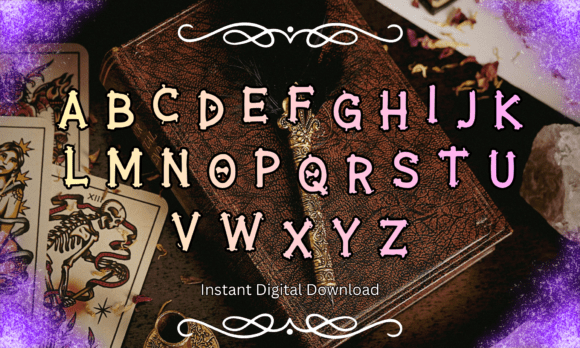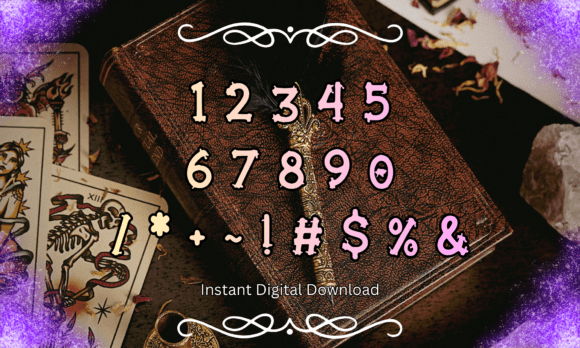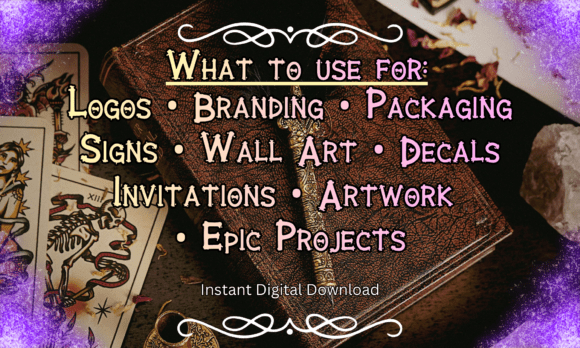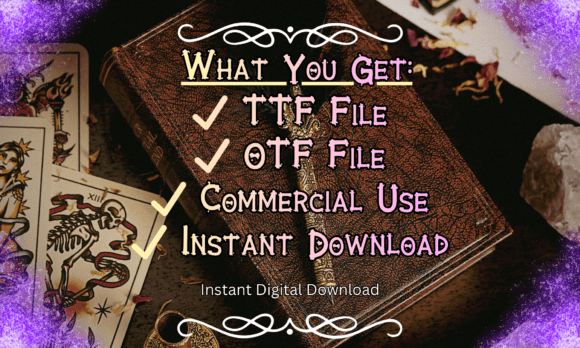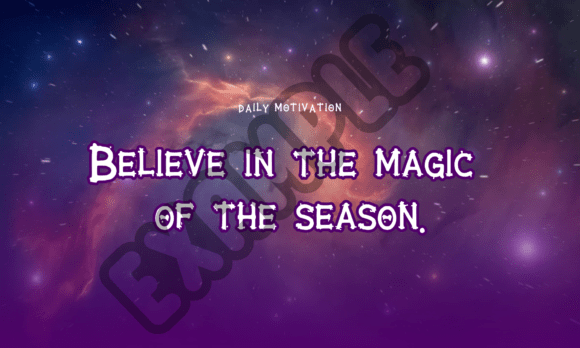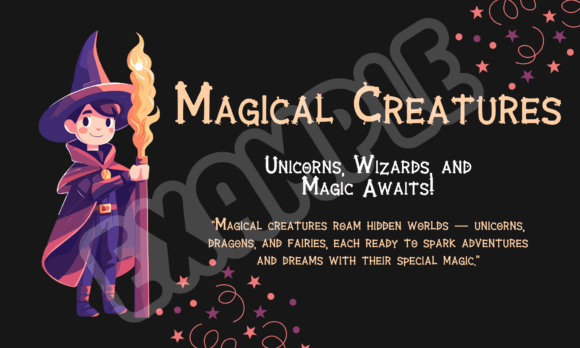
Unlock the Power of Ancient Magic with Arcane Spellbook Font
As a designer, I’ve had my fair share of late nights scouring the depths of font libraries, searching for that perfect typeface to bring a project to life. One particular project still haunts my memory – a mystical tarot card design for a client that required a font that would transport the viewer to a realm of ancient magic. After hours of searching, I stumbled upon Arcane Spellbook, a bold and mystical display font that instantly cast a spell on my design. In this article, I’ll share my journey with Arcane Spellbook, its features, and how to unlock its full potential in your designs.
A Personal Design Moment: Finding the Magic
I recall working on a tarot card design project, and my client wanted a font that would evoke a sense of mysticism and ancient wisdom. I scoured font libraries, but nothing seemed to fit the bill. That was until I discovered Arcane Spellbook. Its bold, mystical, and witchy vibe instantly resonated with my design vision. I knew I had found the perfect font to bring my client’s vision to life.
Here’s my honest review of Arcane Spellbook:
- ✨ Unique and eye-catching design: Arcane Spellbook boasts an unmistakable, bold style that instantly adds a touch of magic to any design.
- ✅ Perfect for mystical and fantasy themes: The font’s witchy, gothic, and fantasy aesthetic makes it an ideal choice for designers working on projects related to mysticism, tarot cards, and arcane rituals.
As for quirks, I’ve noticed:
- 🤔 Limited use in body text: Due to its bold and ornate design, Arcane Spellbook works best as a display font or for short paragraphs of text.
- ⚠️ Some OpenType features may not work on all platforms: While Arcane Spellbook supports OpenType features, some platforms may not be compatible with certain glyphs or stylistic alternates.
The Designer Inspiration Behind Arcane Spellbook
According to the font’s designer, Arcane Spellbook was inspired by the mystical and arcane rituals of ancient cultures. The designer aimed to create a font that would evoke a sense of wonder and magic, perfect for designers working on projects related to mysticism, tarot cards, and fantasy.
Q: What type of projects is Arcane Spellbook best suited for?
A: Arcane Spellbook is perfect for designers working on projects related to mysticism, tarot cards, arcane rituals, and fantasy.
Q: Does Arcane Spellbook support OpenType features?
A: Yes, Arcane Spellbook supports OpenType features, including glyphs and stylistic alternates.